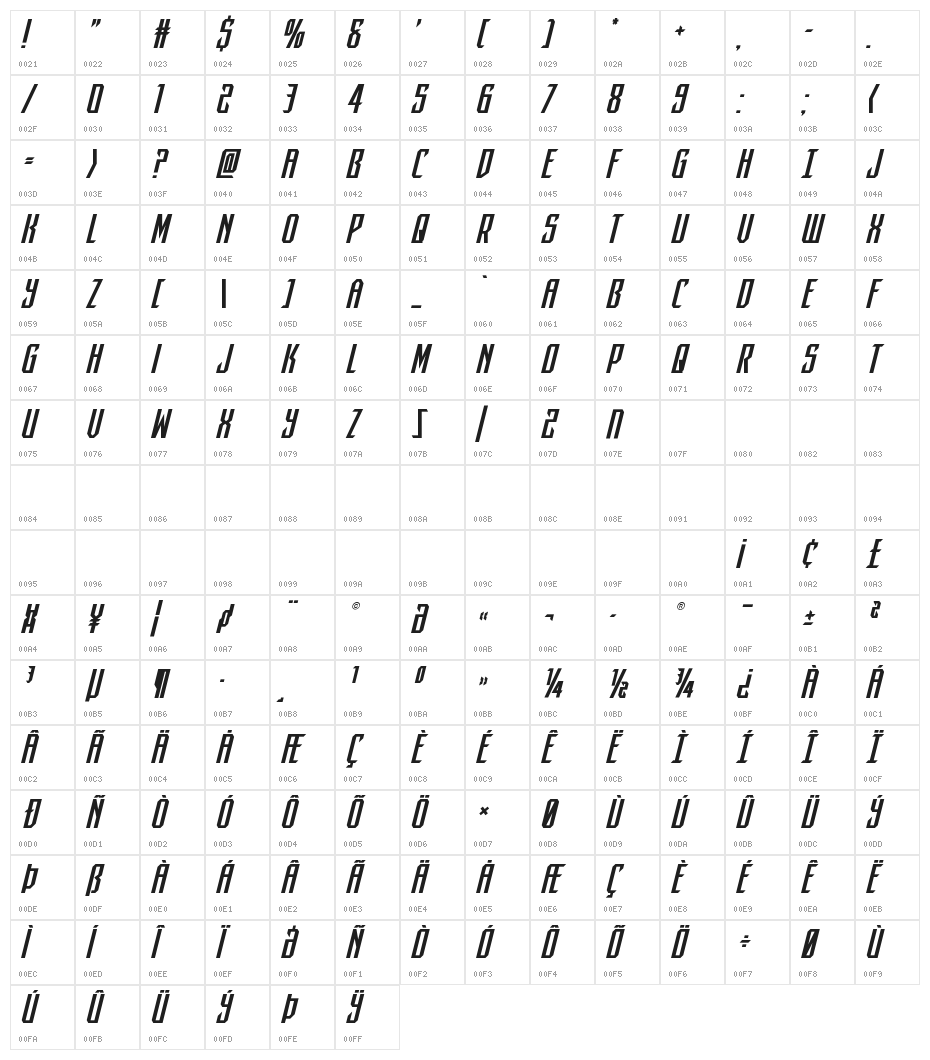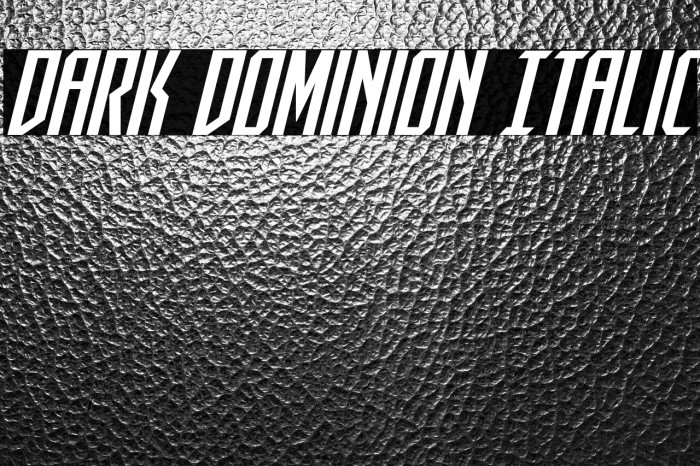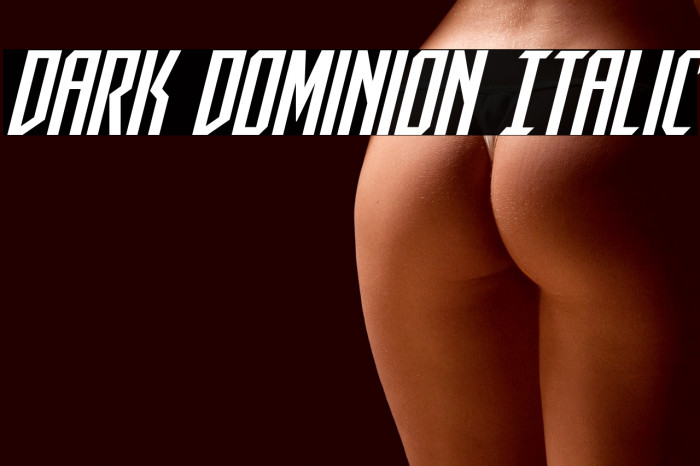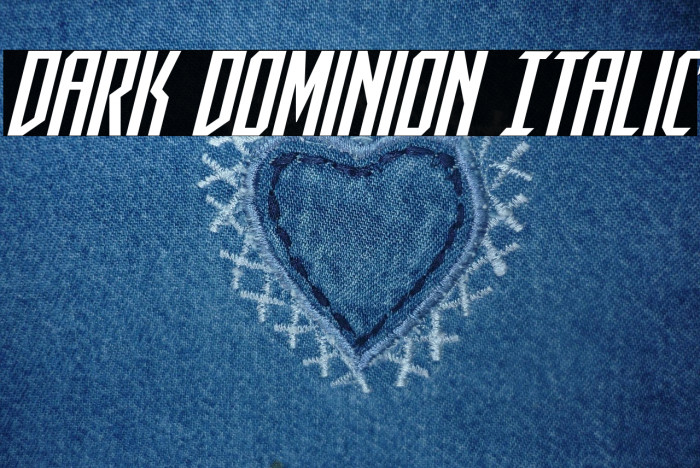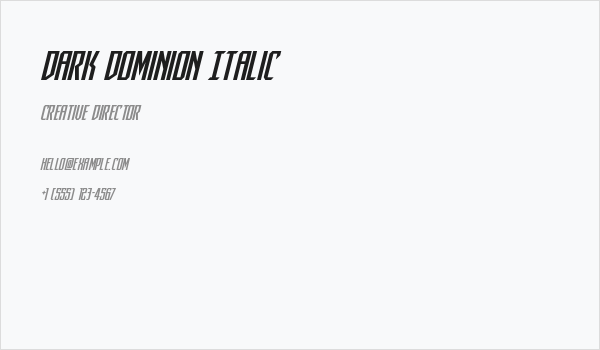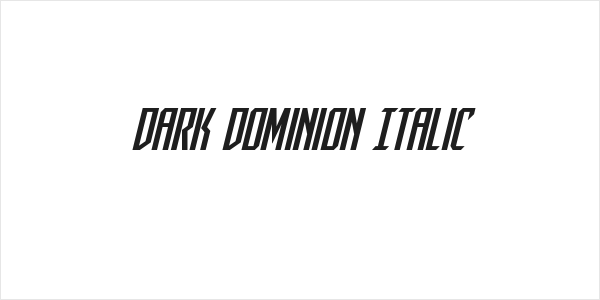
Dark Dominion Italic Font
Dark Dominion Italic Description
This font features a bold, italicized style with sharp, angular edges and a dynamic slant, giving it a sense of movement and energy. The uppercase and lowercase letters maintain a consistent height, creating a uniform appearance. The numbers and special characters follow the same design principles, ensuring cohesion across all elements. The font's aggressive and modern look makes it suitable for attention-grabbing designs.
Proposed ProjectsIdeal for sports branding, action movie posters, and dynamic logo designs.